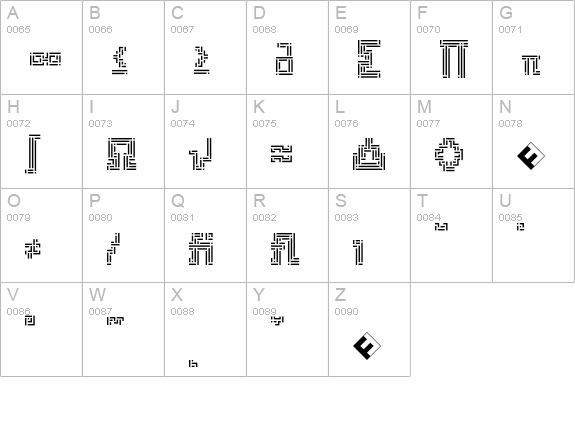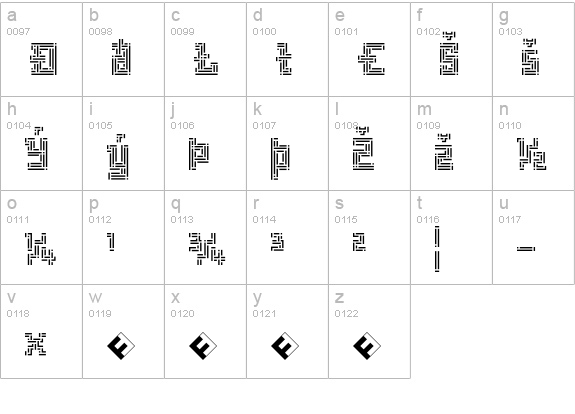
Archian-WilmosExpert font is a versatile and elegant typeface that exudes professionalism and sophistication. Its clean lines and balanced proportions make it perfect for a wide range of design projects, from branding to editorial design. The font features a timeless style that will never go out of fashion, making it a valuable addition to any designer's toolkit. What sets Archian-WilmosExpert font apart is not only its aesthetic appeal but also its accessibility. This premium font is available for free download at FontsMarket.com, allowing designers to easily incorporate it into their work without breaking the bank. Whether you are a seasoned graphic designer or just starting out, Archian-WilmosExpert font is a must-have in your collection. Don't miss out on the opportunity to enhance your designs with this exceptional typeface that combines beauty and functionality seamlessly.